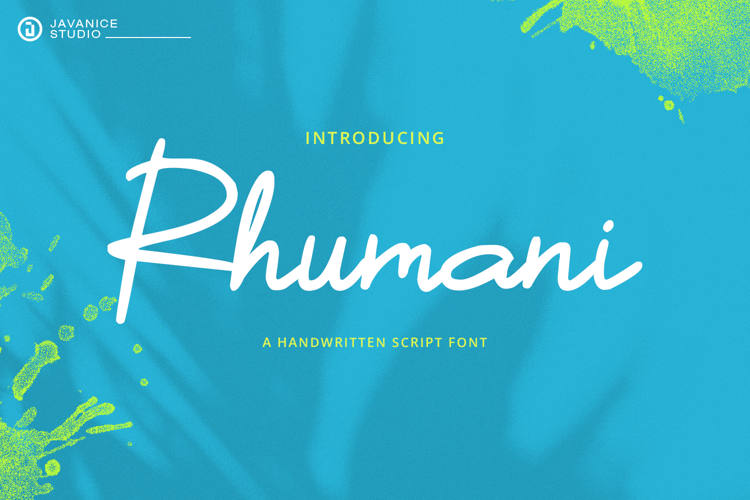
Rhumani Font
This is a handwritten script font perfect for branding project, apparel, labels, magazines, books, greeting / wedding cards, packaging, fashion, make up, stationery, and any type of advertising purpose or just used to express words above the background.